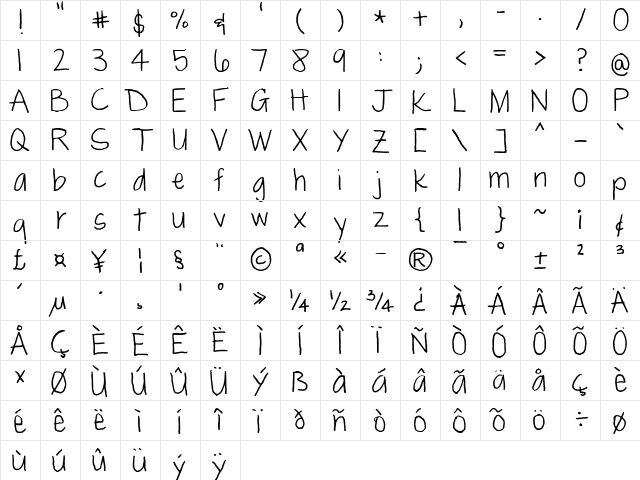
Complete FG Smilla Light Regular glyph index. Displaying only characters natively supported by FG Smilla Light Regular font.
FG Smilla Light is a composed and adaptable typeface that performs quietly and consistently across a wide range of design contexts. Its slender proportions lend an understated elegance to any composition.